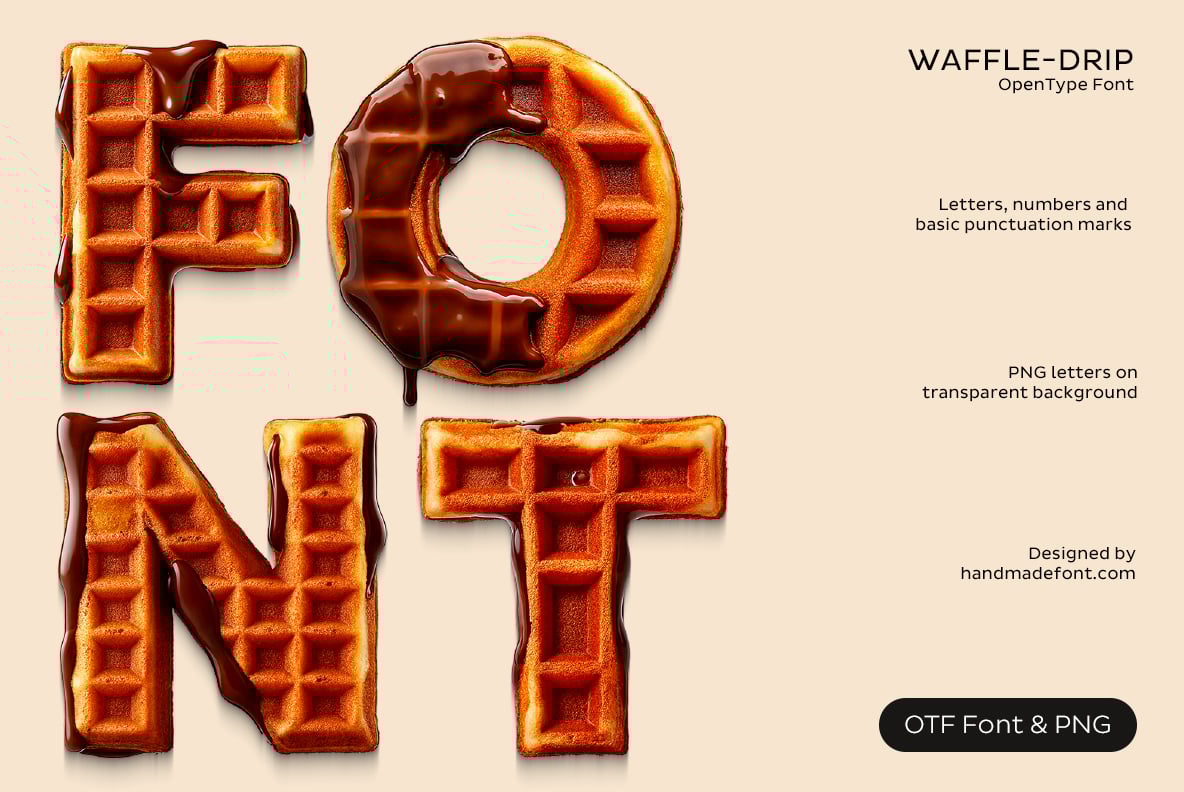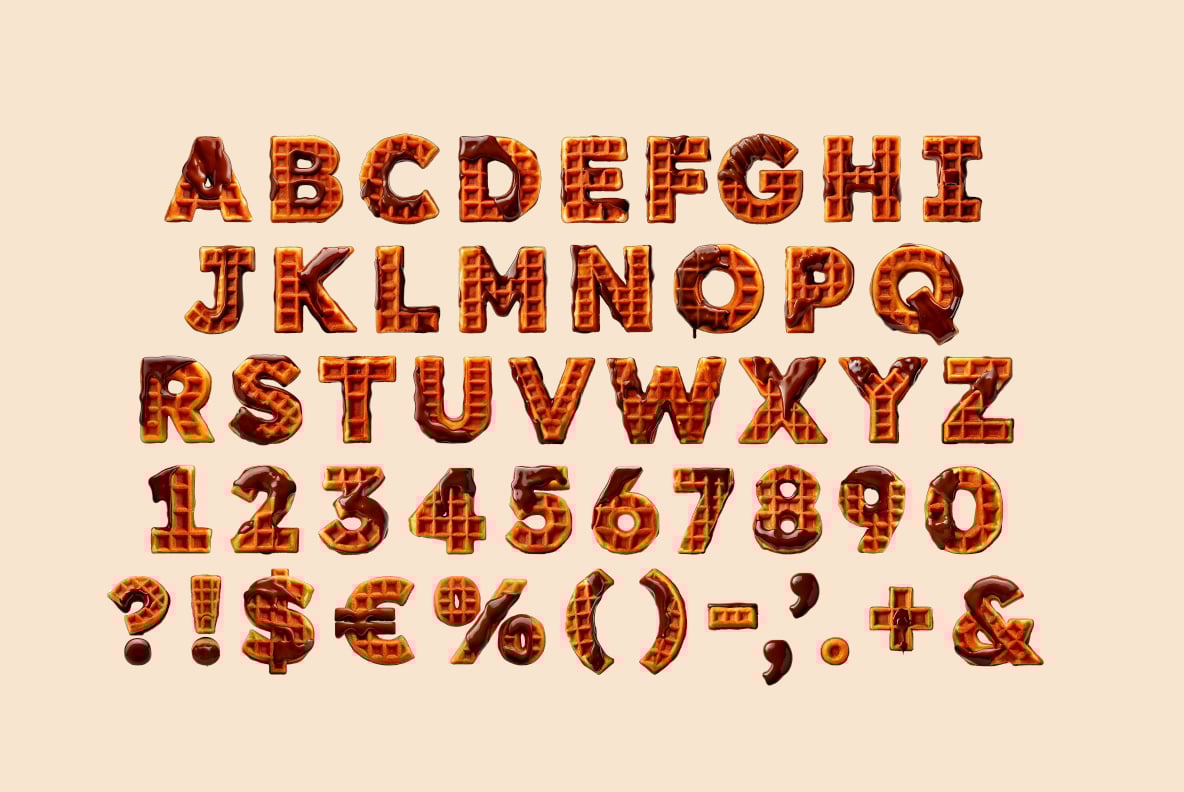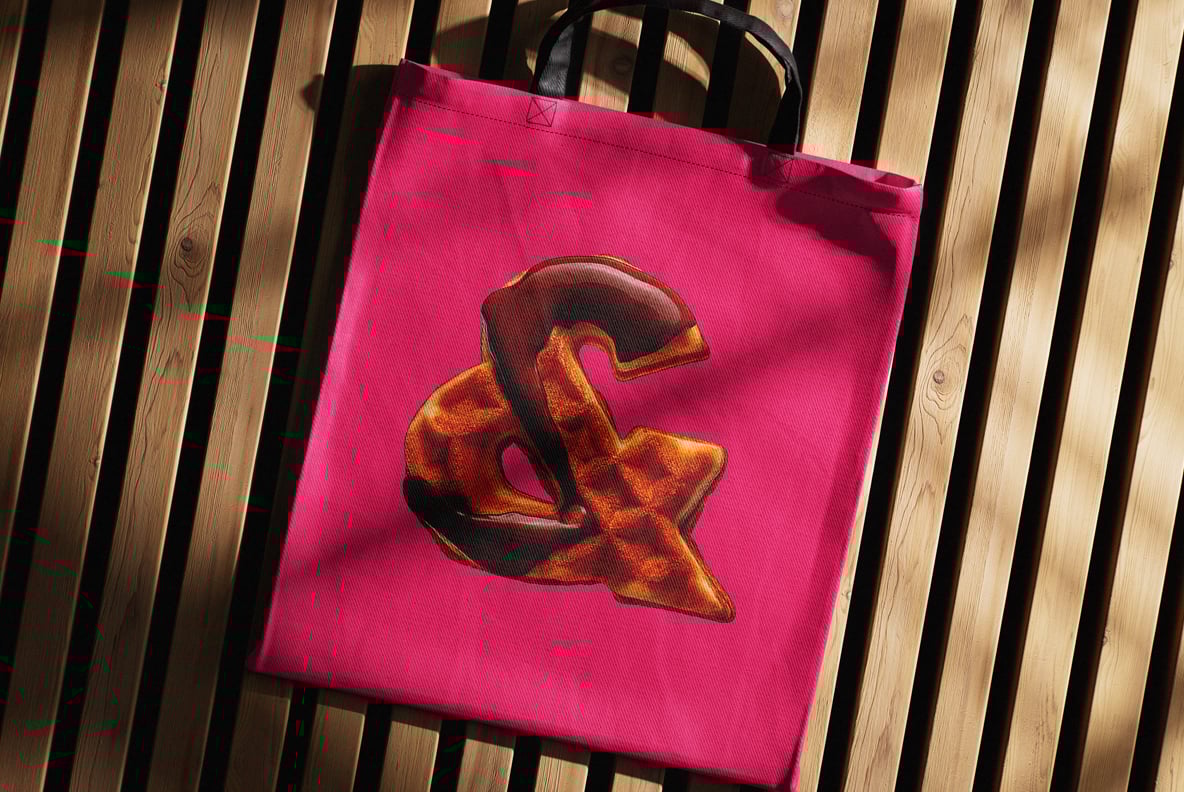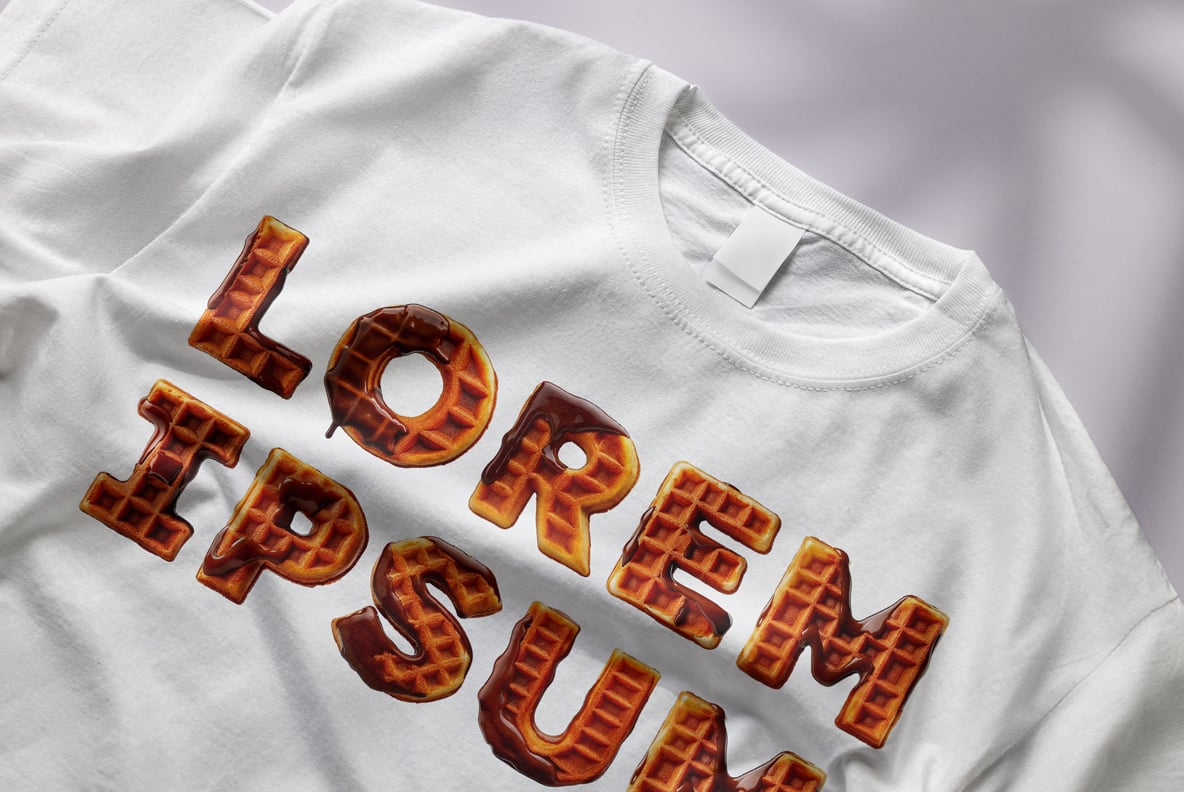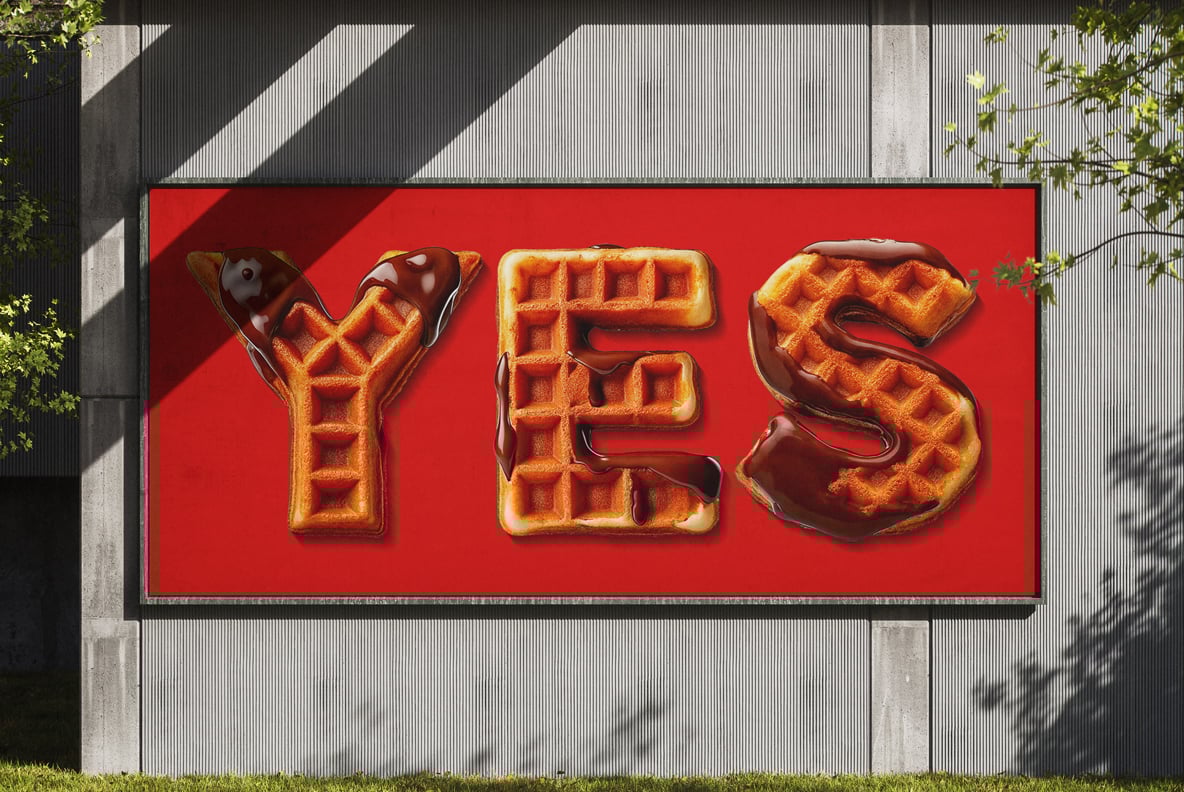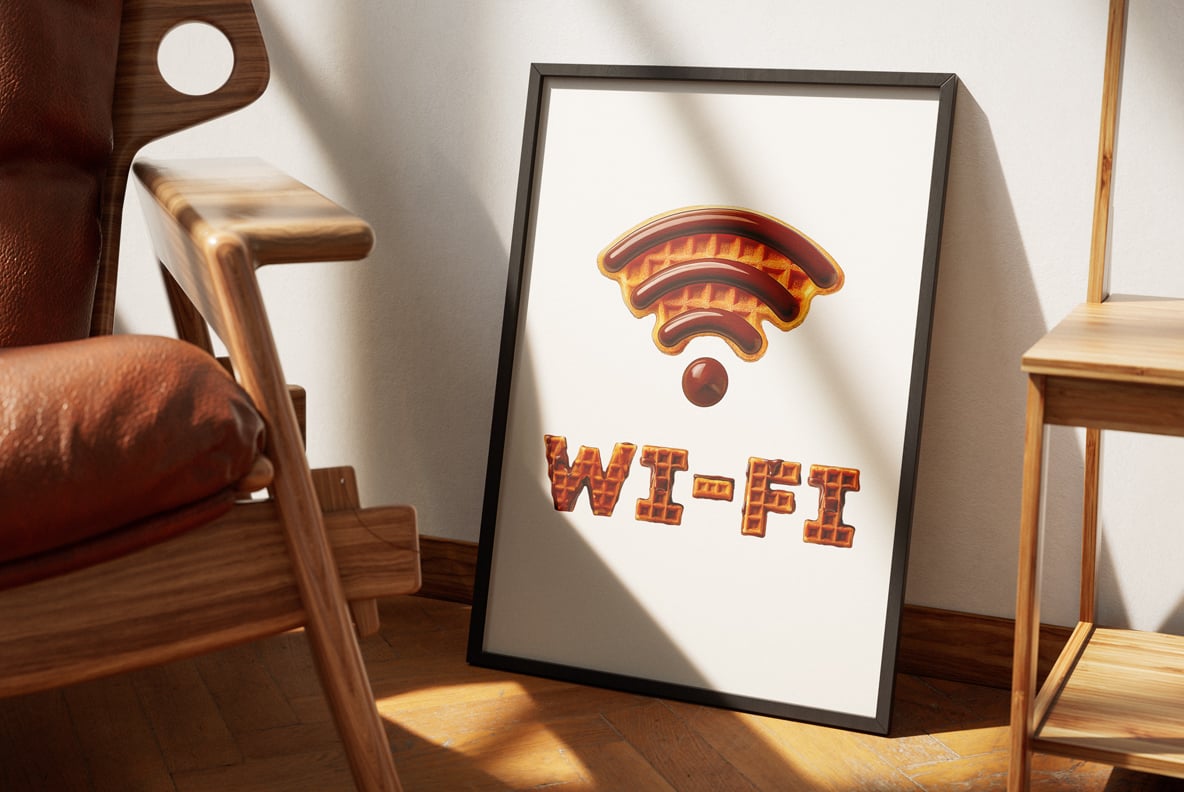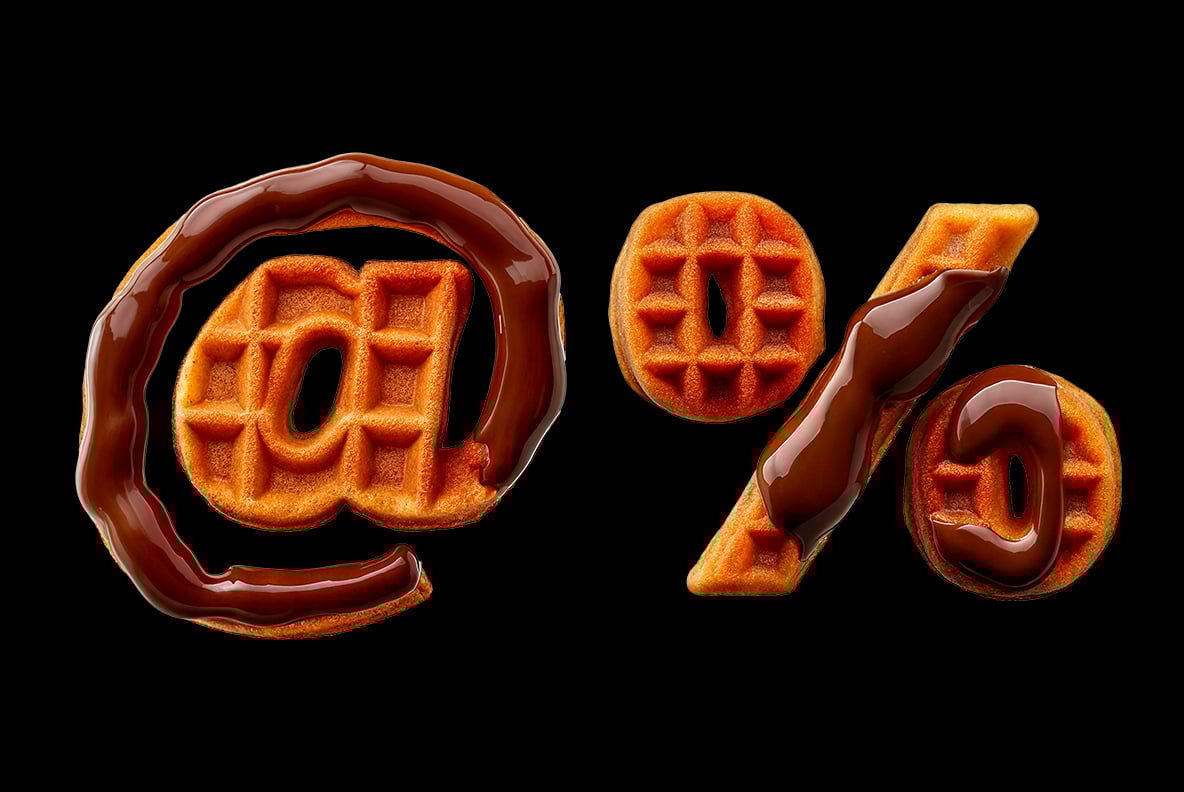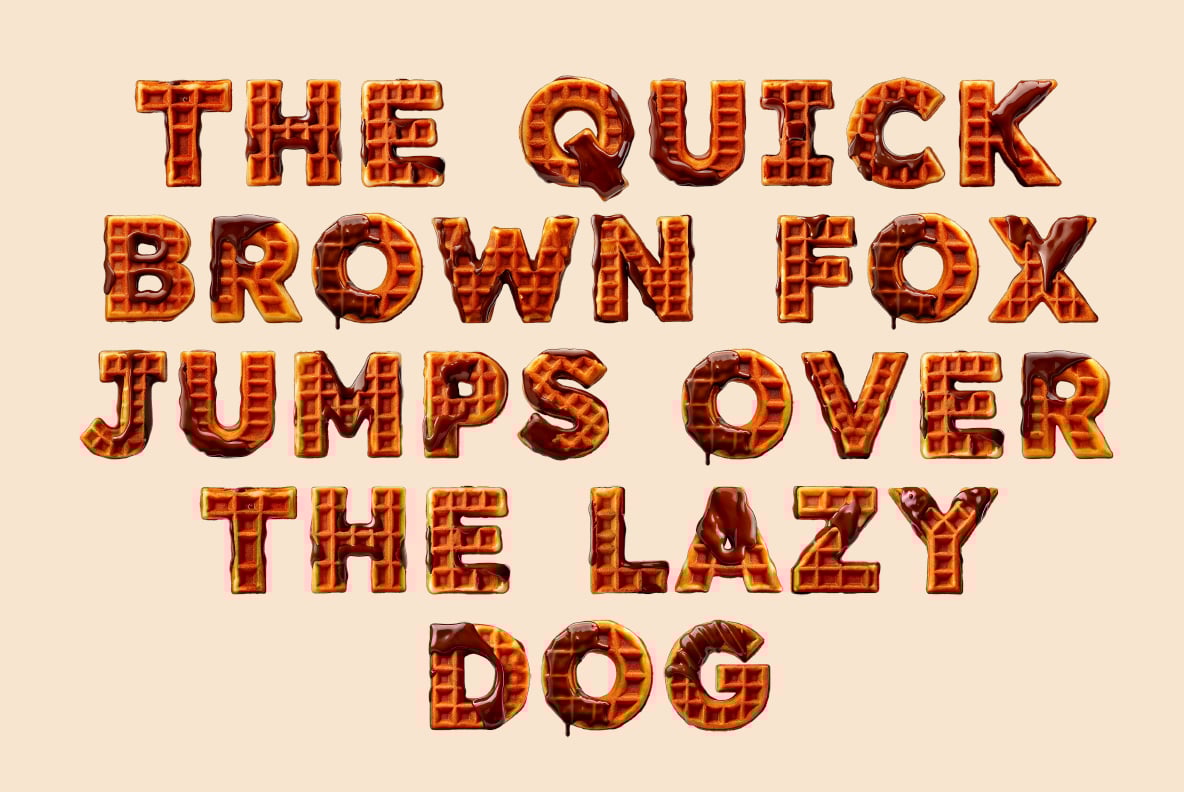
Waffle Drip Font
The Waffle Drip Font is a mouthwatering typeface baked to perfection, designed to look like golden, crispy waffles drizzled with rich, melting chocolate. Each letter carries the irresistible texture of freshly made waffles, making the font both playful and appetizing. Perfect for food branding, café menus, bakery posters, or any project that craves sweetness, warmth, and fun, Waffle Drip instantly draws attention with its delicious charm. This tasty typeface blends creativity with comfort, adding a sprinkle of indulgence to your design. Whether for parties, advertising, or quirky packaging, it serves a delightful balance of flavor and visual appeal.
A high definition OpenType Font. Contains uppercase characters, numerals and basic punctuation. (Draw height roughly 800 pixels). All letters and glyphs that comprises this font you can see on the preview.